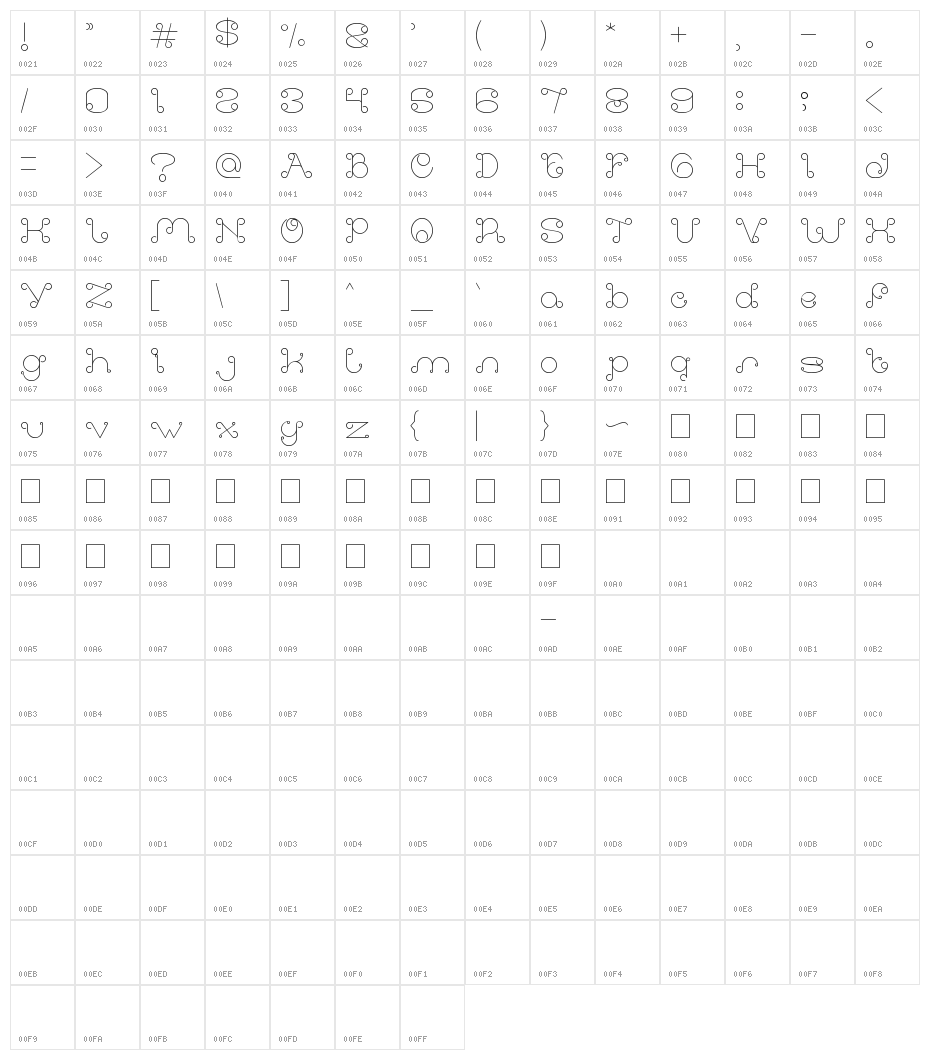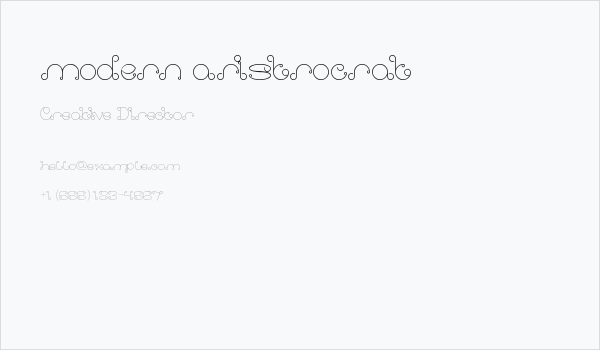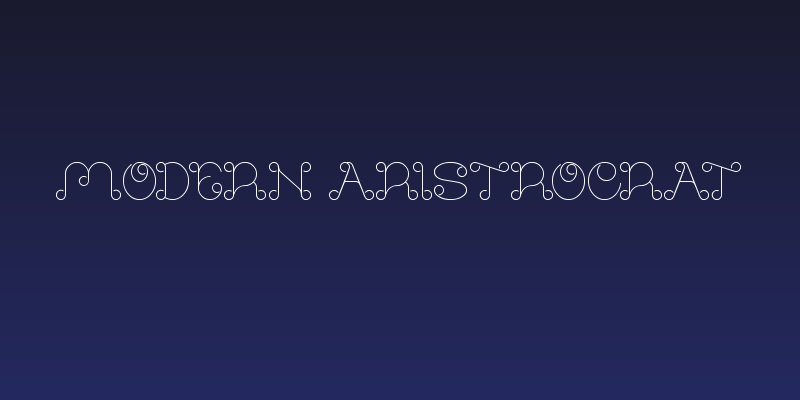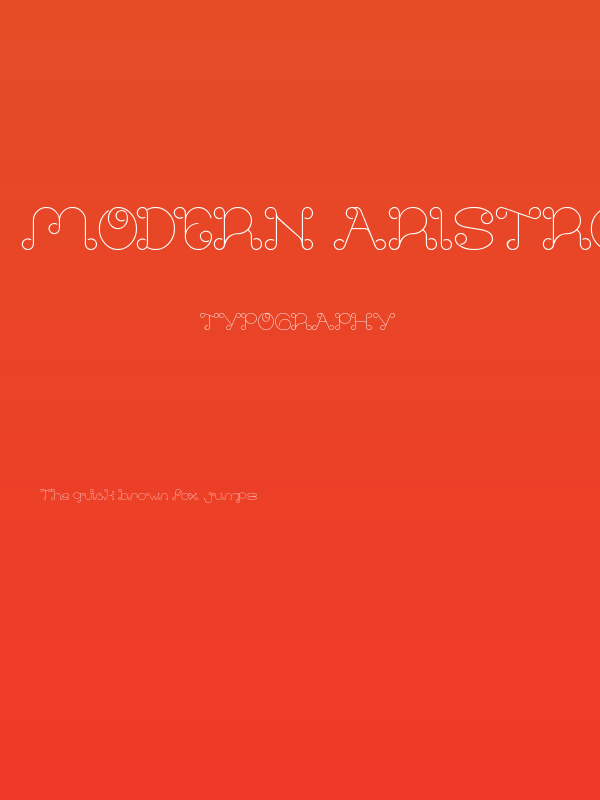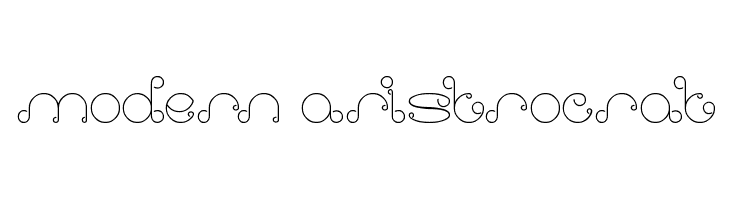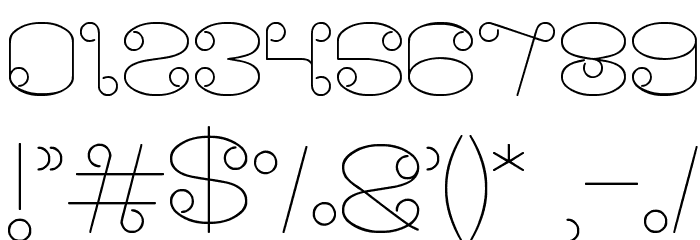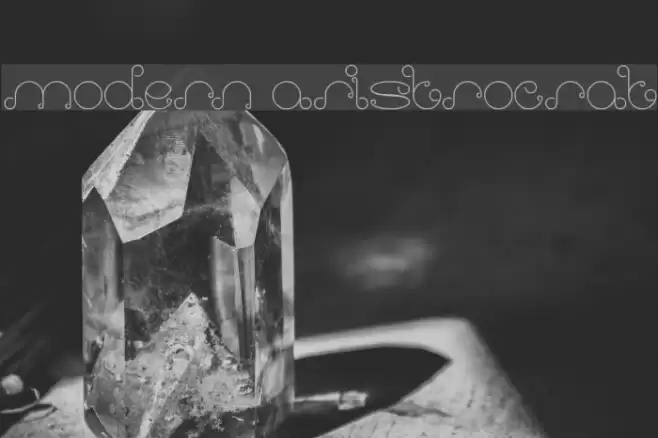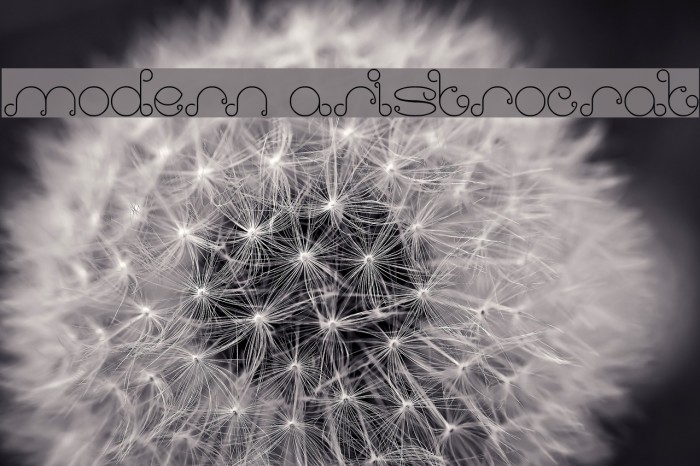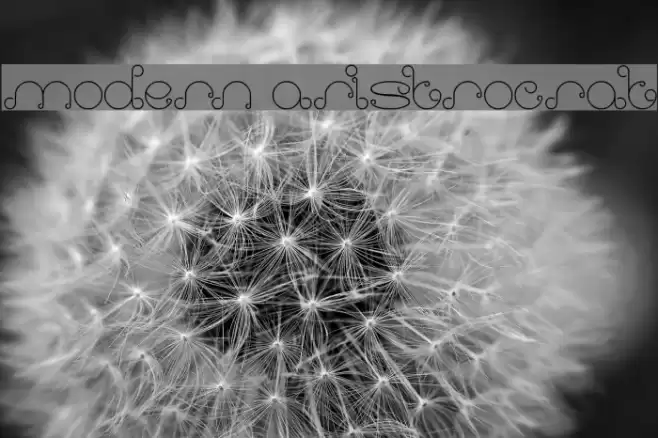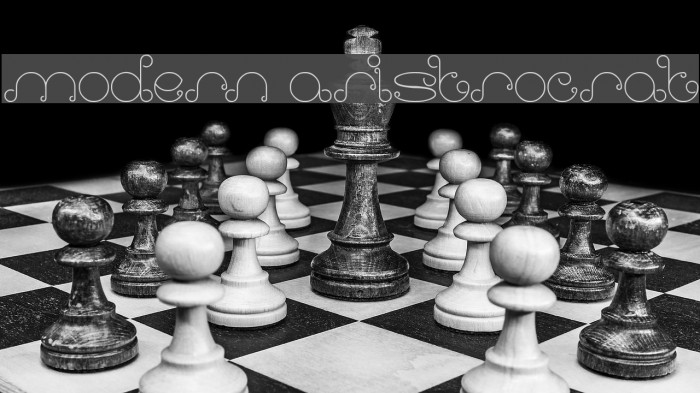
modern aristrocrat Font
modern aristrocrat Description
This font features an elegant and whimsical design, characterized by its unique looped and curled elements that give each letter a playful yet sophisticated appearance. The strokes are consistent in thickness, providing a uniform look across all characters. The uppercase and lowercase letters maintain a harmonious balance, with the loops adding a decorative touch that enhances the overall aesthetic. The numerals and special characters follow the same design principles, ensuring a cohesive style throughout. This font is ideal for projects that require a touch of creativity and elegance, making it suitable for invitations, branding, and artistic endeavors.
| Use Case | Headlines, Logos, Artistic projects |
| Proposed Projects | Ideal for invitations, branding, artistic projects, and decorative designs. |